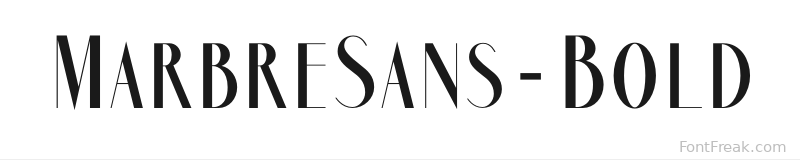
MarbreSans-Bold
MarbreSans
MarbreSans-Bold is a striking sans-serif typeface designed by Youssef Habchi, released as freeware in 2014. This font showcases a bold and modern aesthetic, with a clean design that emphasizes clarity and readability. The stroke weight is notably thick, which lends the font a commanding presence, while the overall spacing is well-balanced, ensuring that text remains legible even at smaller sizes. The visual characteristics of MarbreSans-Bold include sharp, defined edges that create a contemporary look, making it suitable for a variety of applications.
This font is ideal for use in high-impact environments such as movie posters, where attention-grabbing headlines are essential. It also excels in branding materials, providing a strong and memorable identity for small business owners looking to make a lasting impression. Additionally, MarbreSans-Bold is an excellent choice for restaurant menus, where clarity and style can enhance the dining experience. Graphic designers will appreciate its versatility, as it can be effectively used in digital content, social media graphics, and marketing collateral.
Targeting a wide audience, MarbreSans-Bold appeals to graphic designers, small business owners, and content creators alike. Its bold characteristics cater to those looking to convey strength and modernity in their designs. The font’s unique style stands out in a crowded marketplace, offering a fresh alternative to more traditional typefaces.
In summary, MarbreSans-Bold is a distinctive font that combines modern design with functionality. Its strong visual appeal and versatility make it a valuable asset for any designer's toolkit. For those interested in enhancing their projects, the MarbreSans-Bold font free download offers an excellent opportunity to incorporate this unique typeface into their work.